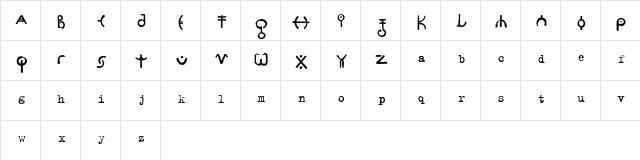
signs - zeichen 2.0 Regular Free Font
signs - zeichen 2.0 Regular
Design Context for signs - zeichen 2.0
signs - zeichen 2.0 is a composed and adaptable typeface that performs quietly and consistently across a wide range of design contexts.